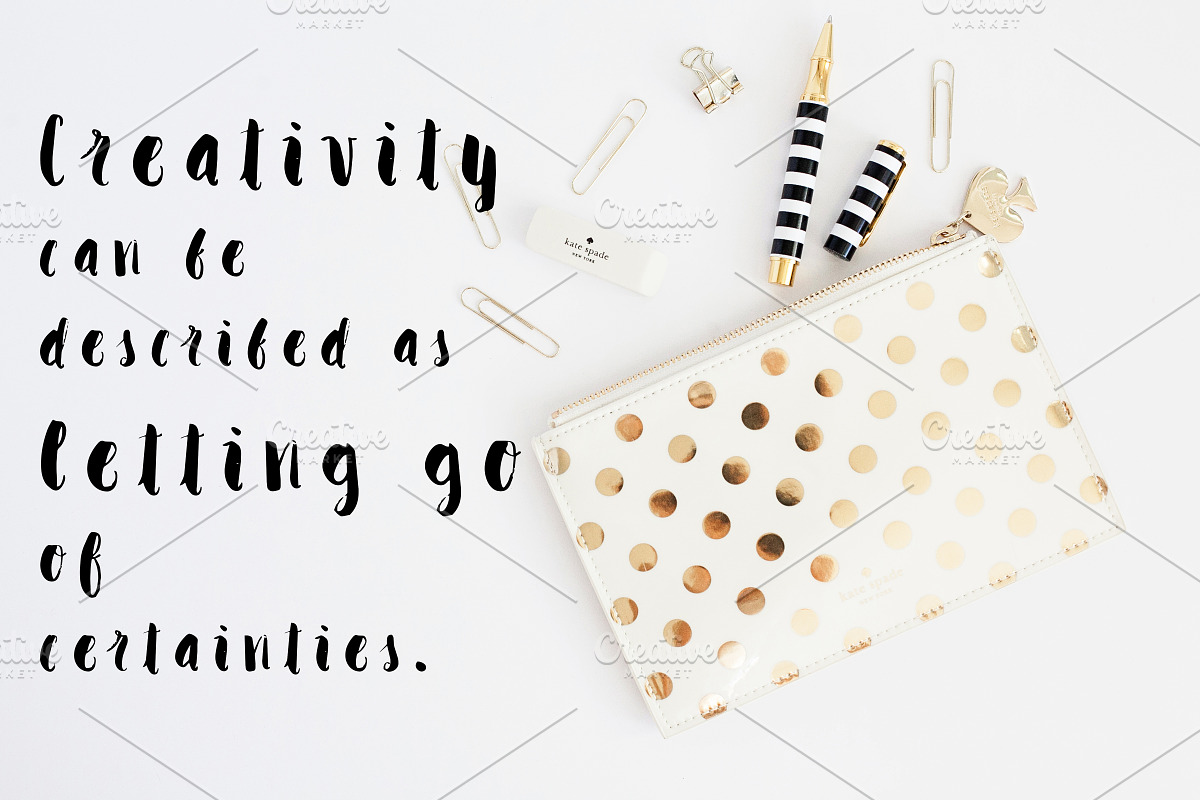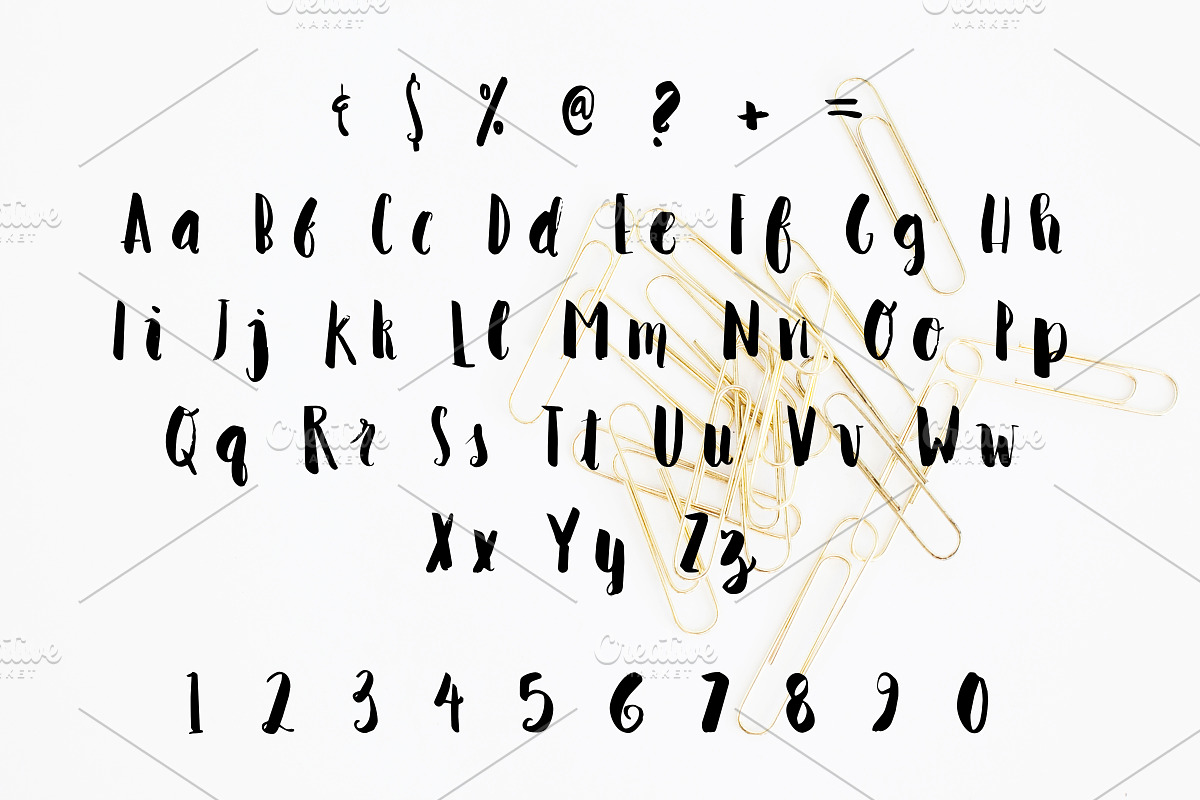
BAIKAL Calligraphy Font
BAIKAL Calligraphy Font by Rhonna Designs is a font selected for branding, posters, packaging, typography.
Why BAIKAL Calligraphy Font is worth a look
BAIKAL Calligraphy Font by Rhonna Designs fits naturally into Branding, posters, packaging, typography.